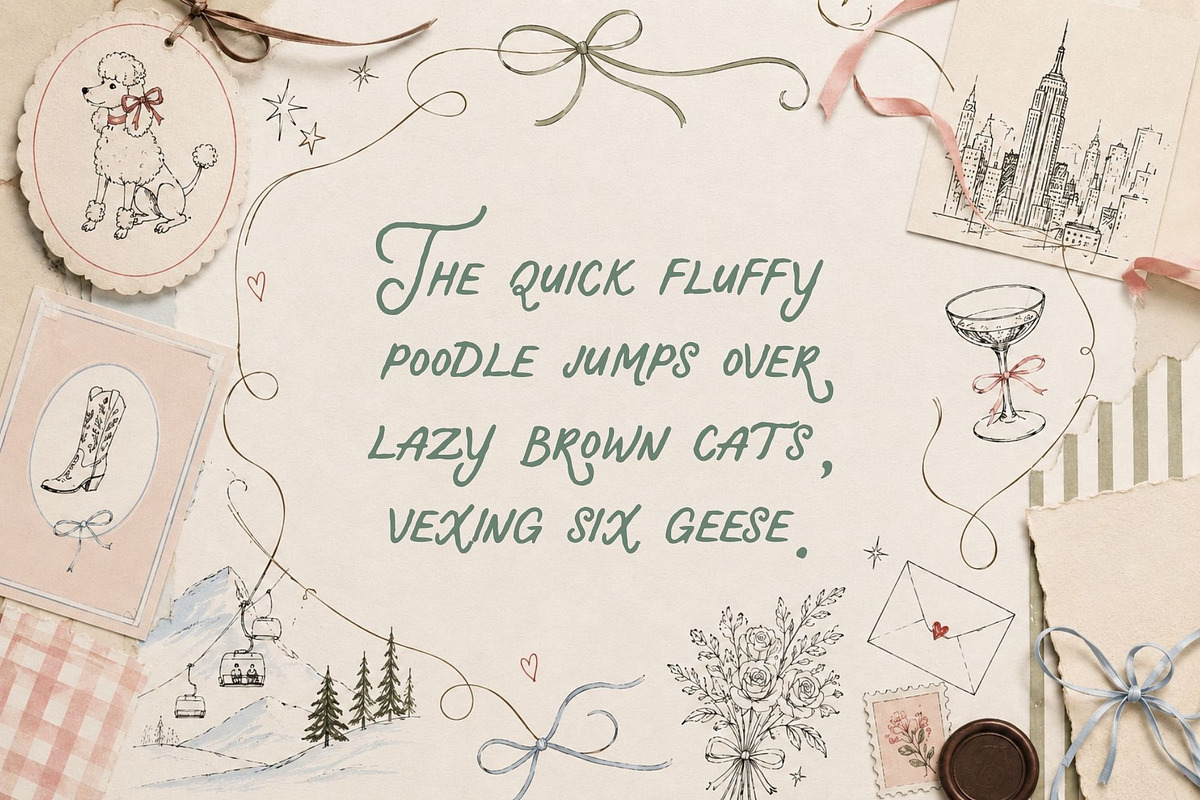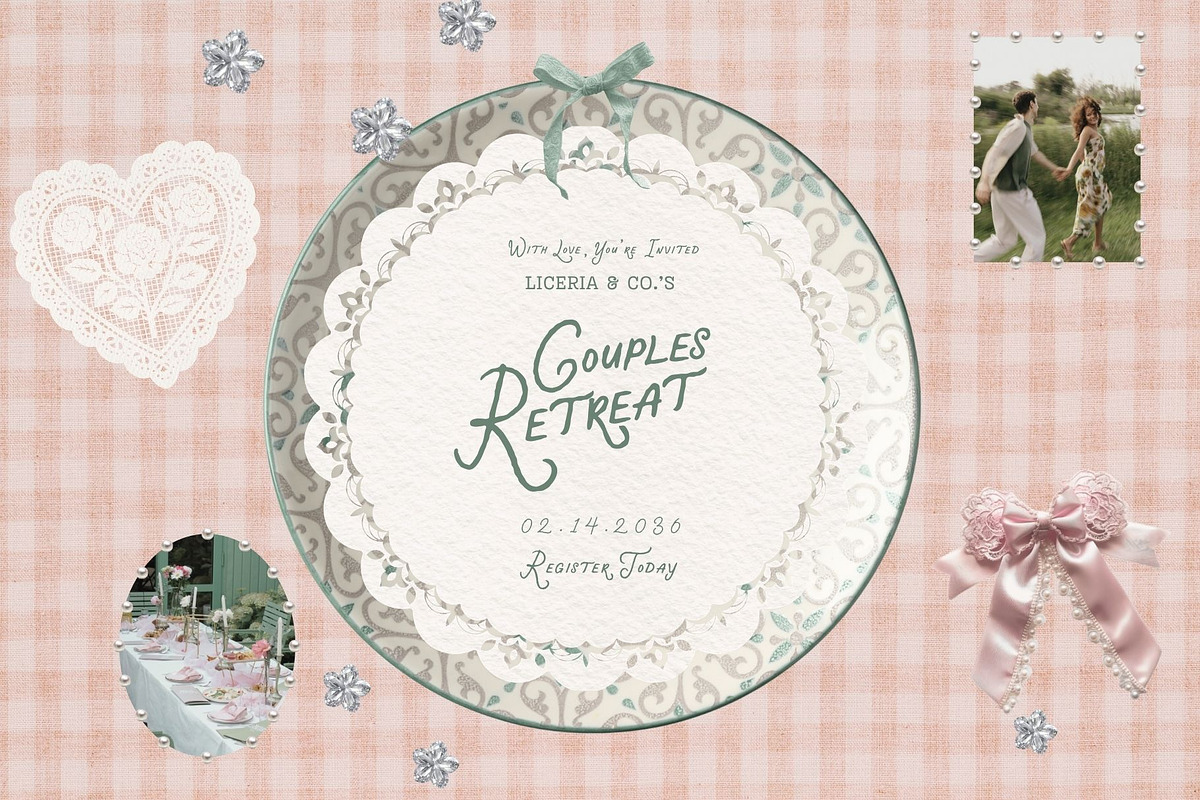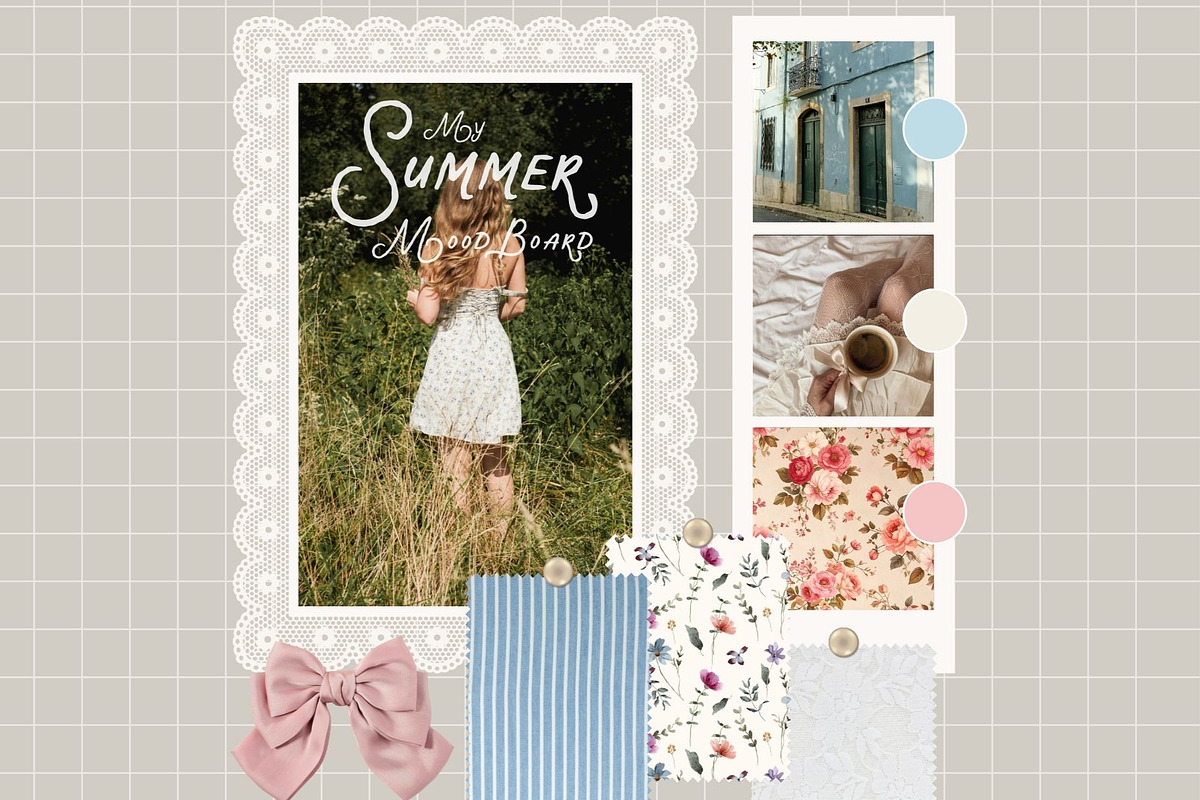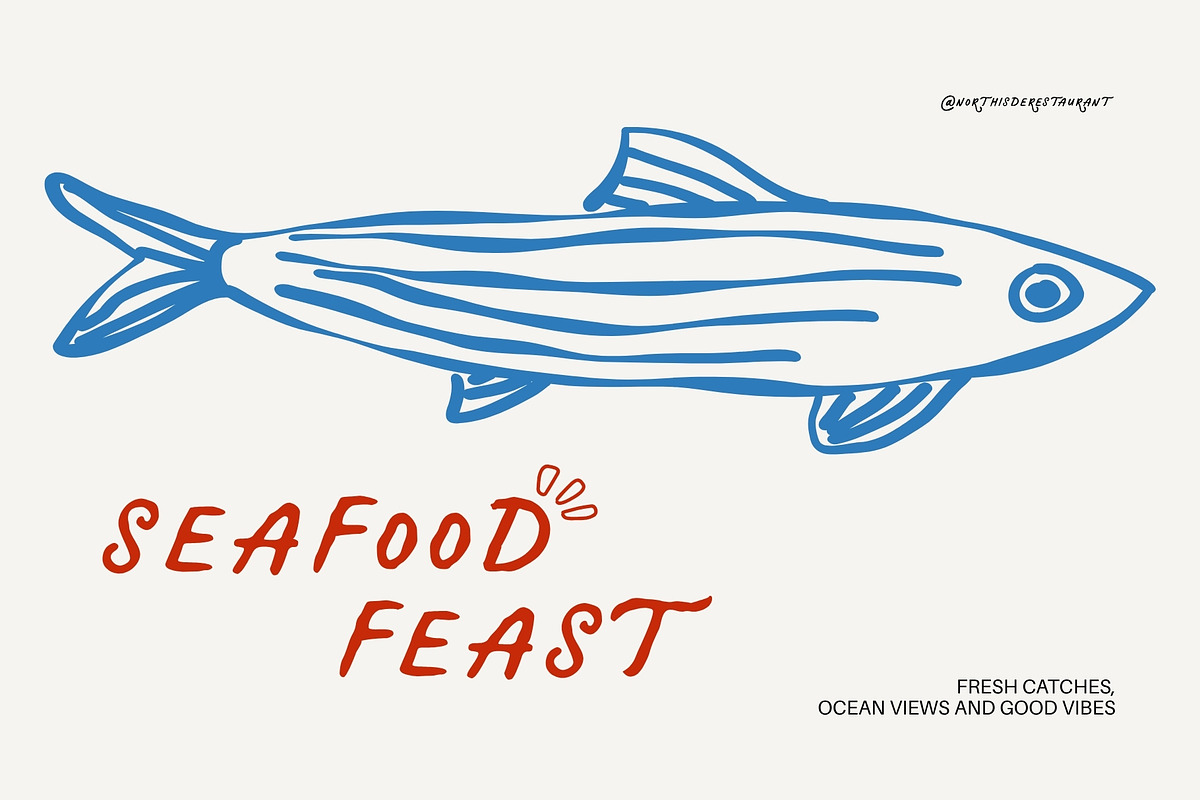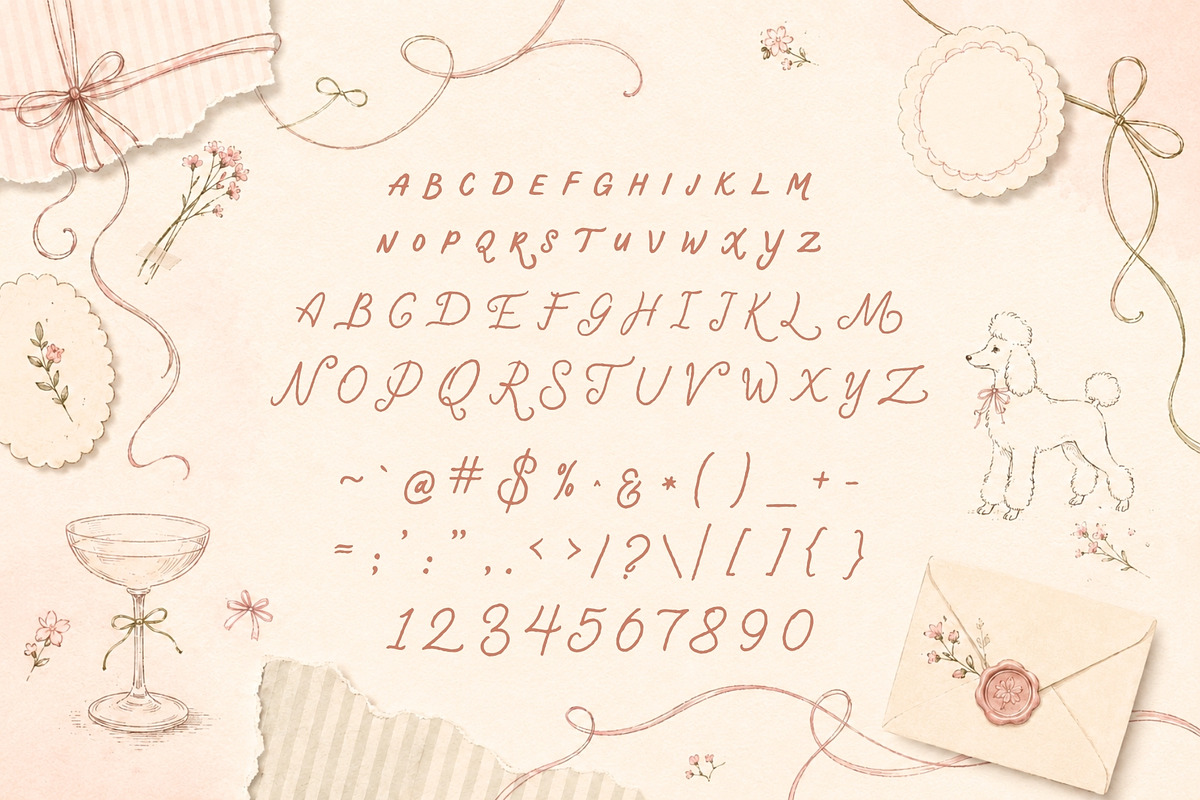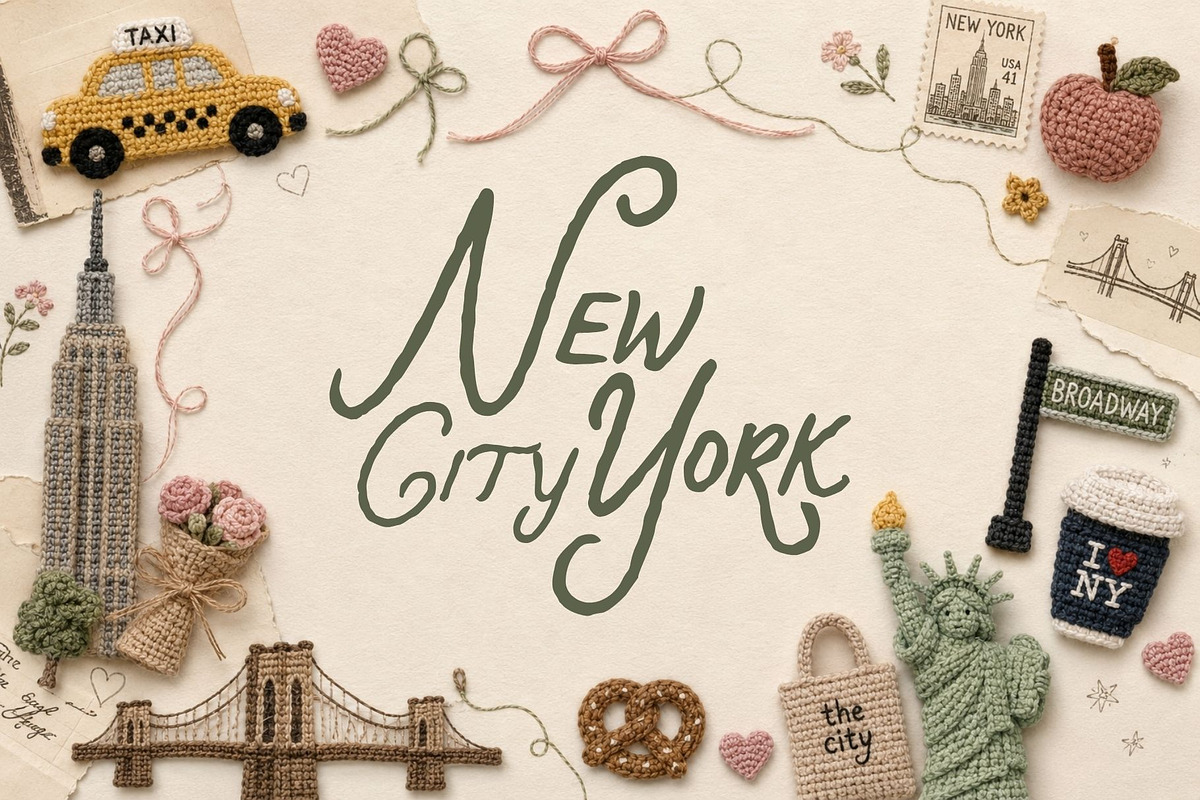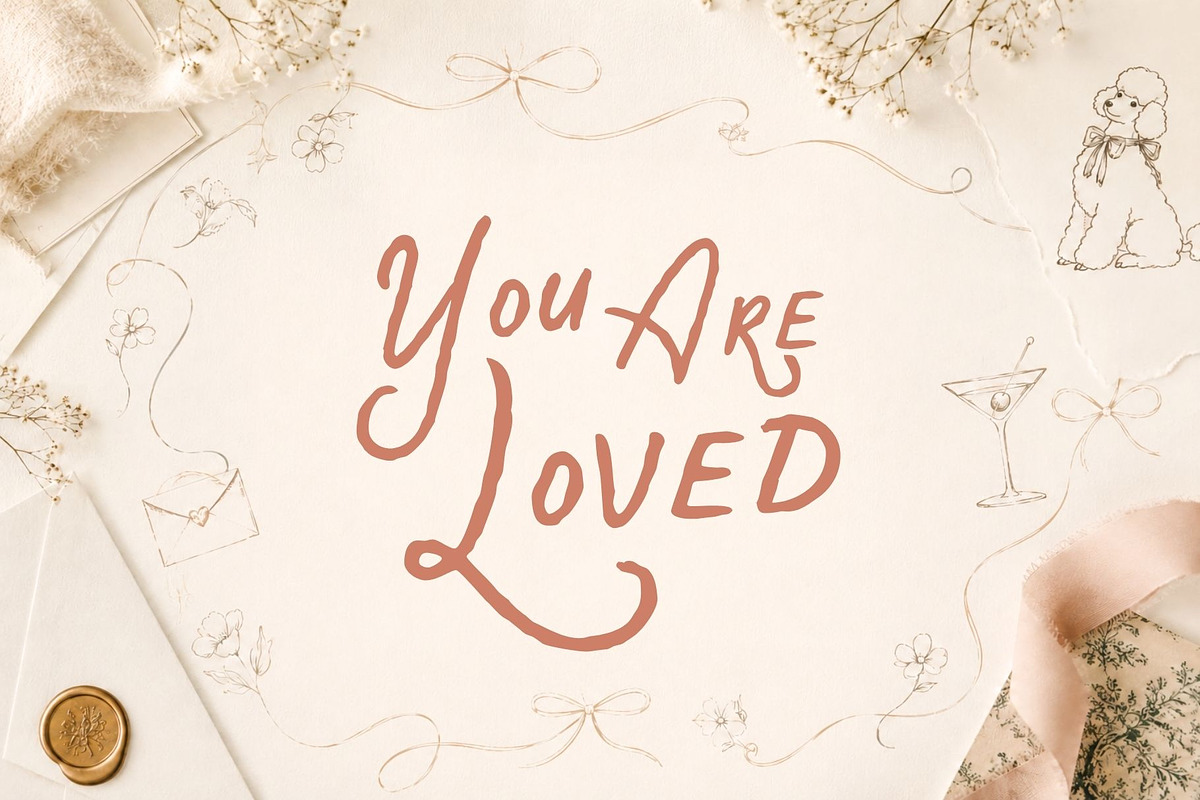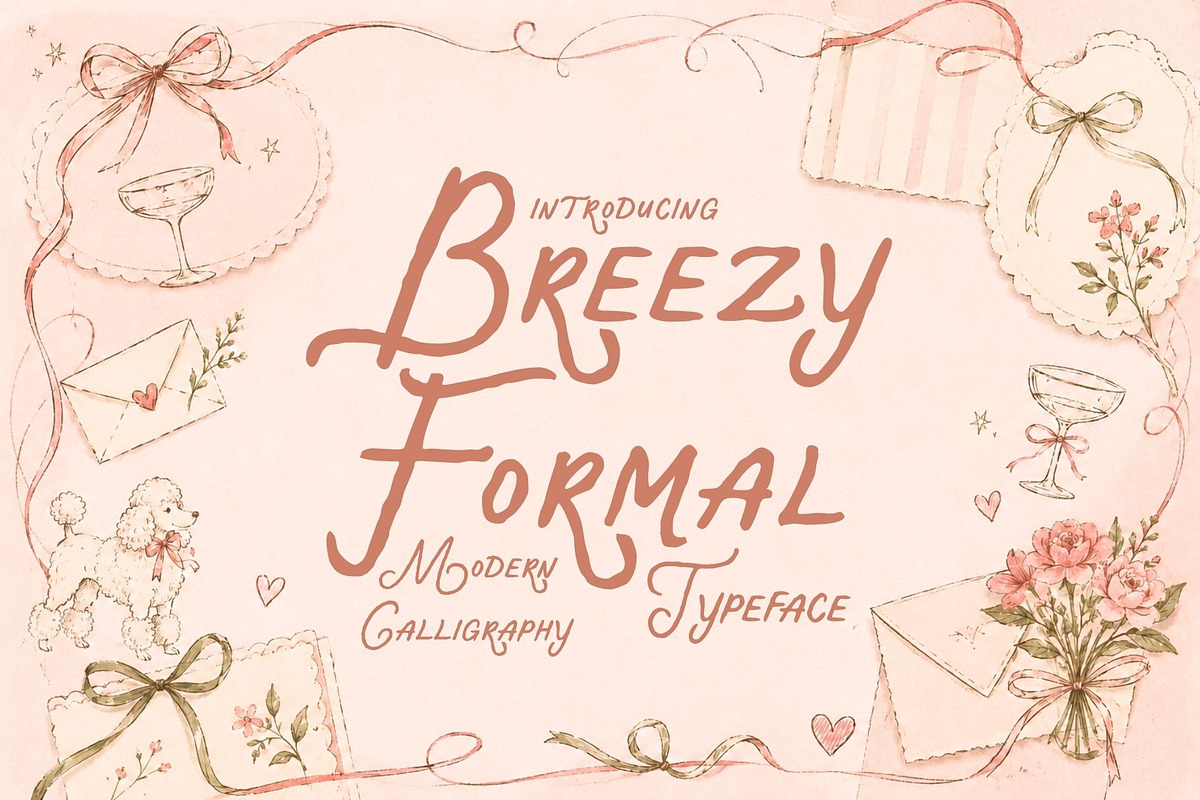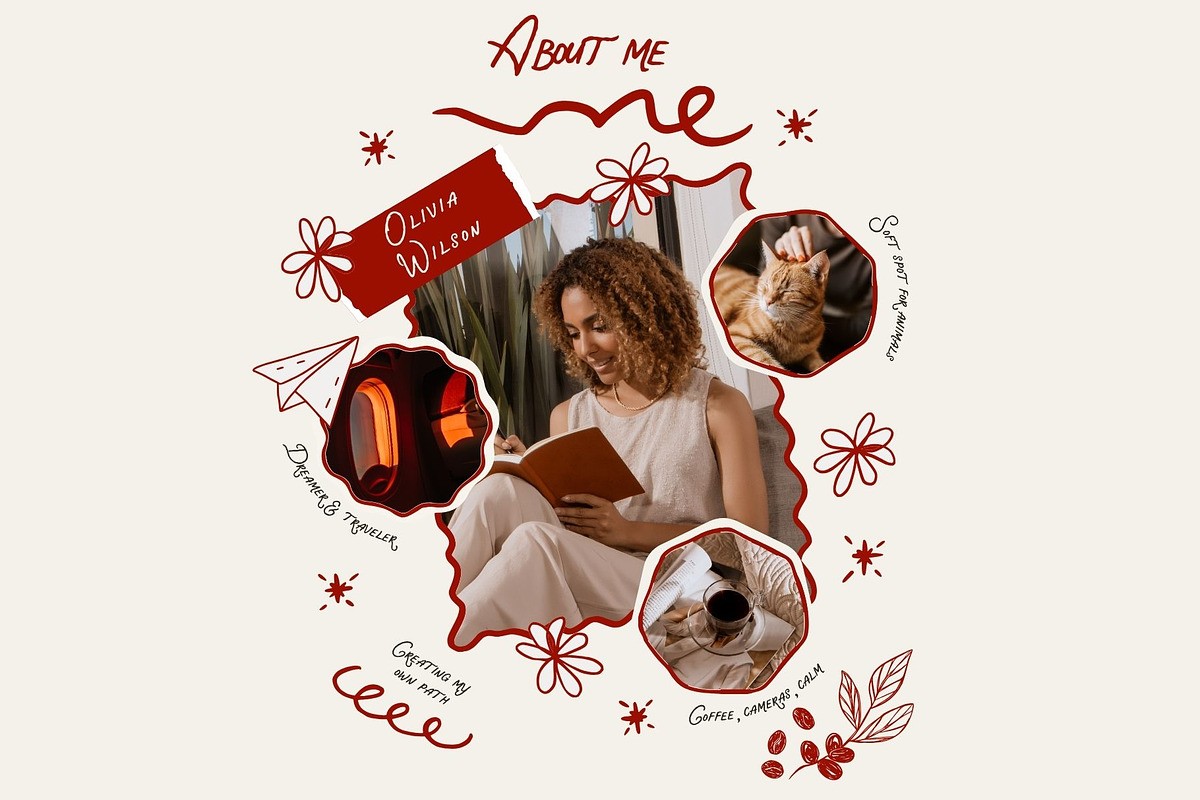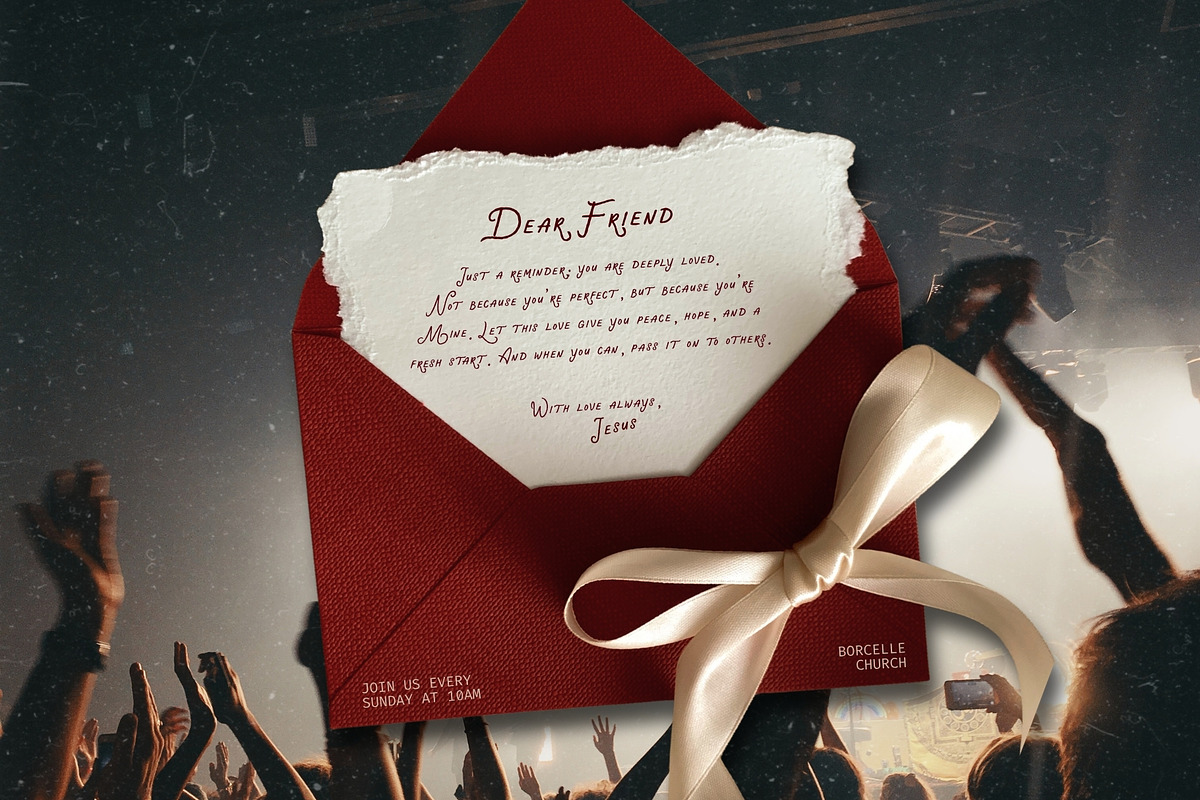
Breezy Formal - Handmade Calligraphy
Meet Breezy Formal, a modern calligraphy font where polished elegance meets playful, hand-drawn charm. Inspired by boutique stationery studios, fashionable wedding editorials, vintage society cards, and intimate handwritten notes, this expressive typeface brings warmth, personality, and effortless sophistication to every design.
Breezy Formal features naturally irregular letterforms, graceful movement, unexpected curls, and a relaxed handwritten rhythm that feels personal rather than overly polished. Its distinctive character makes it perfect for designers who want romantic lettering with a creative, contemporary edge.
With 55 alternate ligatures, you can introduce beautiful variation throughout your words and create compositions that feel genuinely hand-lettered. Mix and match the ligatures to add natural connections, decorative details, and a more customized finish to logos, names, headlines, and invitations.
Breezy Formal also supports 68 languages, making it a versatile choice for international brands, multilingual stationery, destination weddings, and creative projects made for audiences around the world.
Use Breezy Formal for wedding invitations, save-the-dates, menus, place cards, greeting cards, fashion branding, beauty packaging, boutique logos, editorial graphics, social media content, product labels, thank-you notes, and memorable personal stationery.
Romantic without feeling overly traditional, whimsical without becoming childish, and elegant without losing its handmade soul, Breezy Formal is designed for projects that deserve to feel intimate, distinctive, and beautifully human.